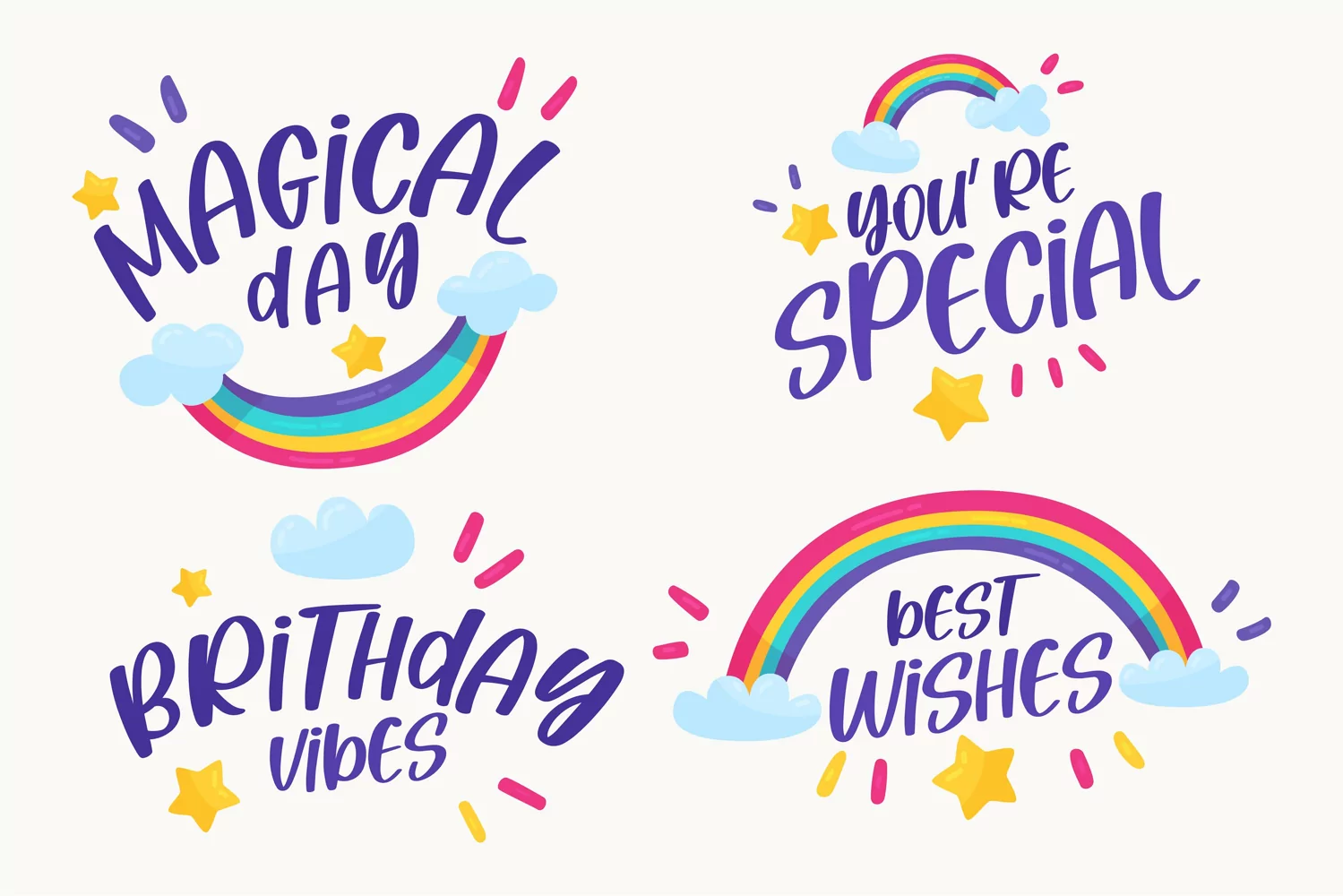
Rainbow is a sweet and quirky handwritten font. Fall in love with its incredibly versatile style and use it to create gorgeous wedding invitations, beautiful stationary art, eye-catching social media posts, and much more!
Rainbow